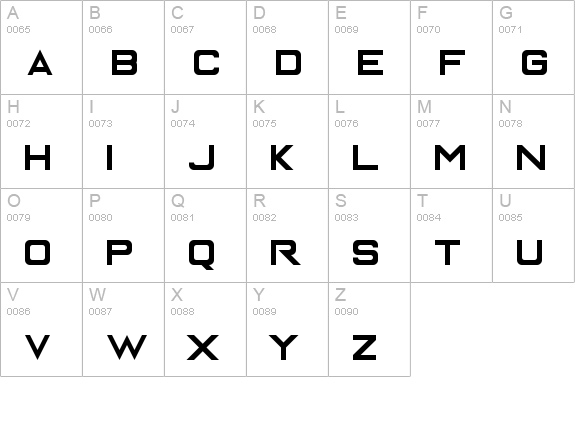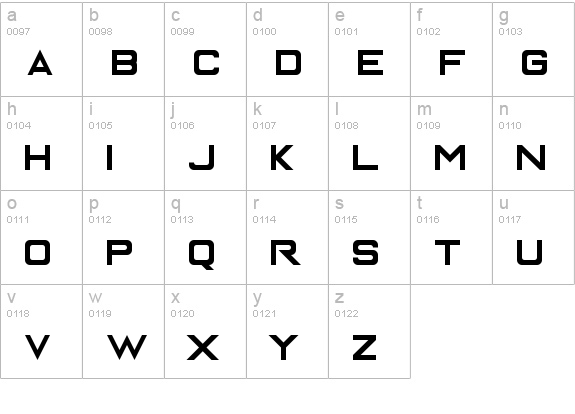
Enter The Grid Regular Font Details
Enter The Grid Regular is the standard, neutral variant in the Enter typeface family \xE2\x80\x94 well suited to general body text, paragraphs, and standard typographic work.
Enter The Grid Regular font is a modern and sleek typeface that exudes a perfect balance between elegance and functionality. Its clean lines and geometric shapes make it ideal for a wide range of designs, from branding to editorial layouts. The precise spacing and proportions of this font give it a professional and polished look that will elevate any project. Best of all, Enter The Grid Regular font is available for free download at FontsMarket.com. This means you can easily access this versatile typeface without any cost, making it a valuable addition to your font library. Whether you're a designer looking for a stylish font for your next project or a business owner in need of a sophisticated typeface for your branding materials, Enter The Grid Regular font is the perfect choice. Download it today and see how it can enhance your designs!